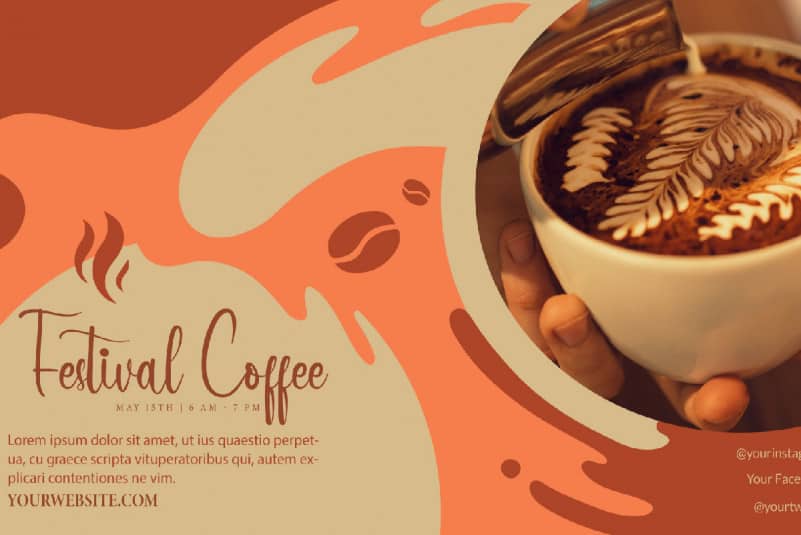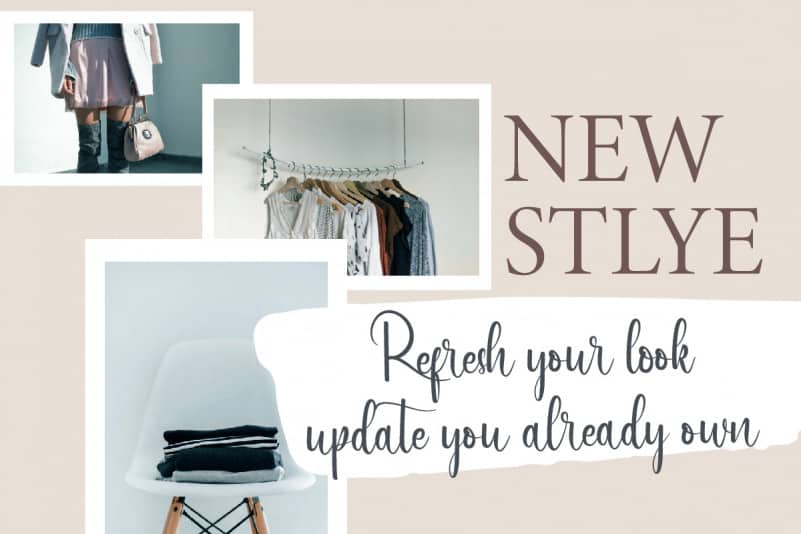
Always There Script Font
Always There Script Font is a beautiful handwriting font, great for children invitation, tittle, book, social media post etc. This font is crafted carefully in every its single letter so we can make sure it has special looking, exclusive and This one should make your designs instantly standout and stunning !